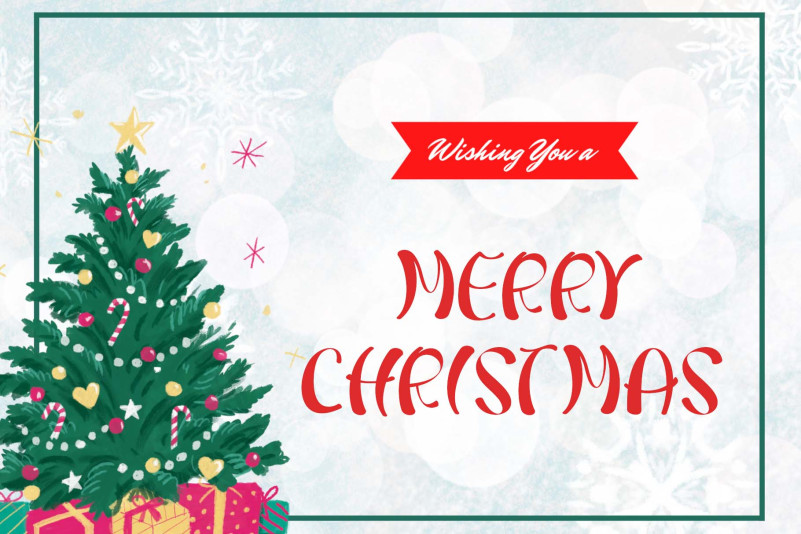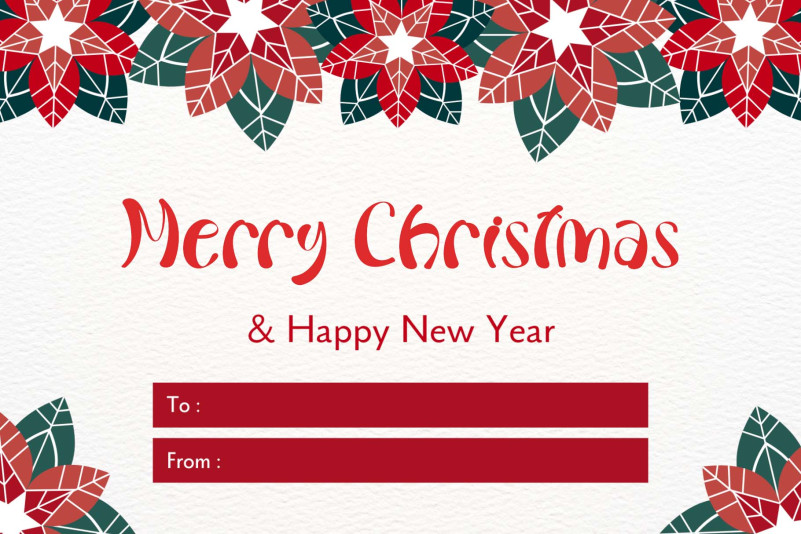
Cold Christmas Font
Cold Christmas Font is a fun and friendly display font. Whimsical and a little bit quirky, this typeface will brighten up each of your designs.